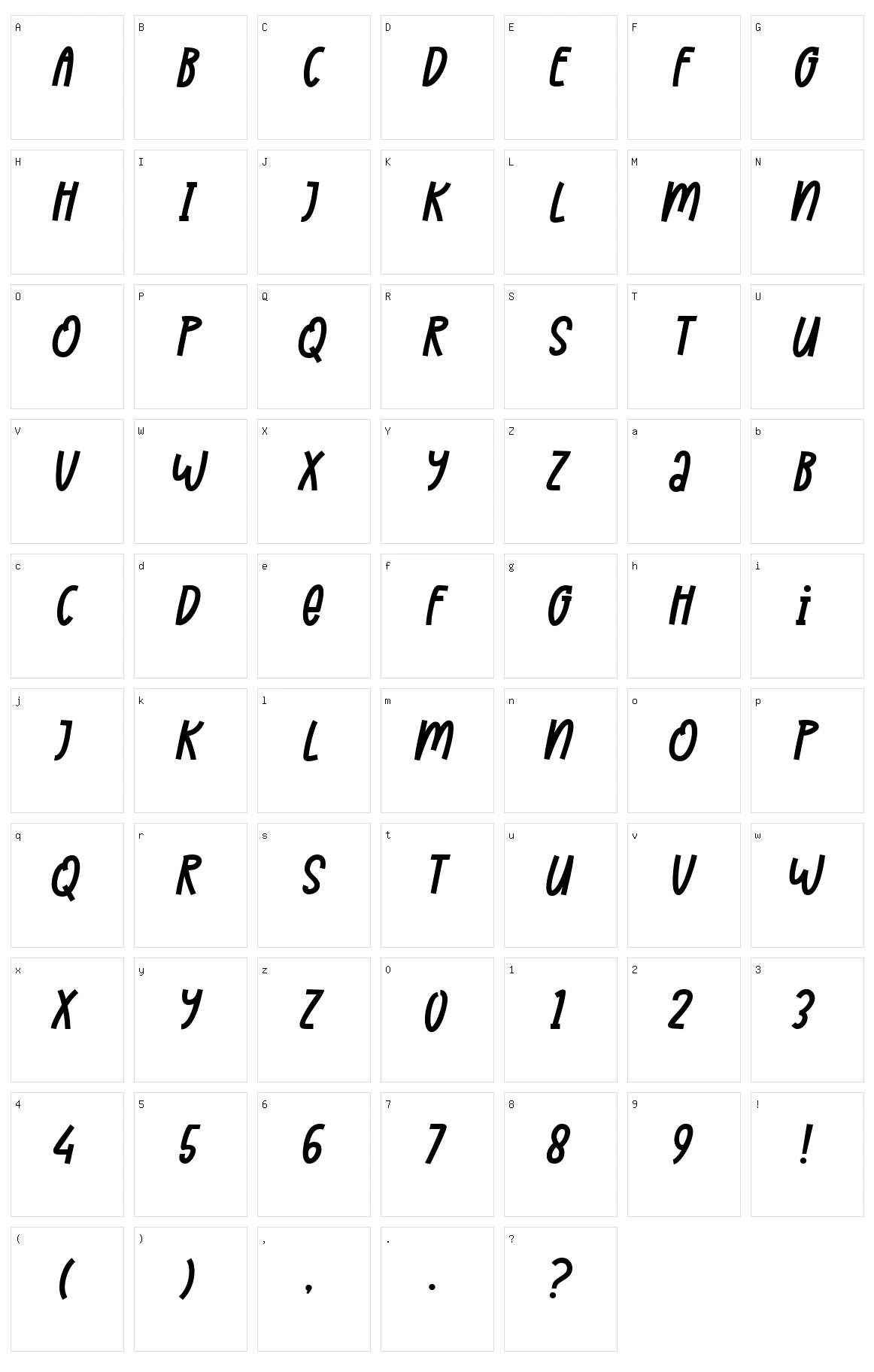
The free font Basketball Diary is carefully designed by epiclinez, showcasing a thoughtful balance of creativity and usability and falls under the Cartoon font style. When you download the ZIP file, it contains only 16.41 KB of font files, making it lightweight and quick to download. Please review the license details below to understand permitted usage and distribution rights. If license information is not available, we recommend using this font for personal projects only or contacting the author directly for commercial usage permissions.